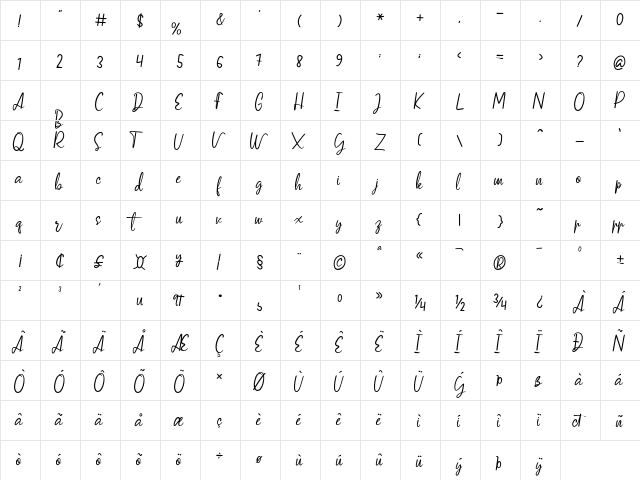
VerticaScripts2 Regular
Design Context for VerticaScripts2 Typeface
VerticaScripts2 flows with the natural rhythm of handwritten lettering, making it ideal for designs that call for warmth and personal expression.
Font Pairing: Combine VerticaScripts2 with a simple geometric sans for maximum contrast — the tension between flowing curves and clean structure is a classic typographic pairing.
Pro Tip: Use VerticaScripts2 for short runs of text — names, titles, or taglines. Extended body copy in script faces tires the eye quickly.